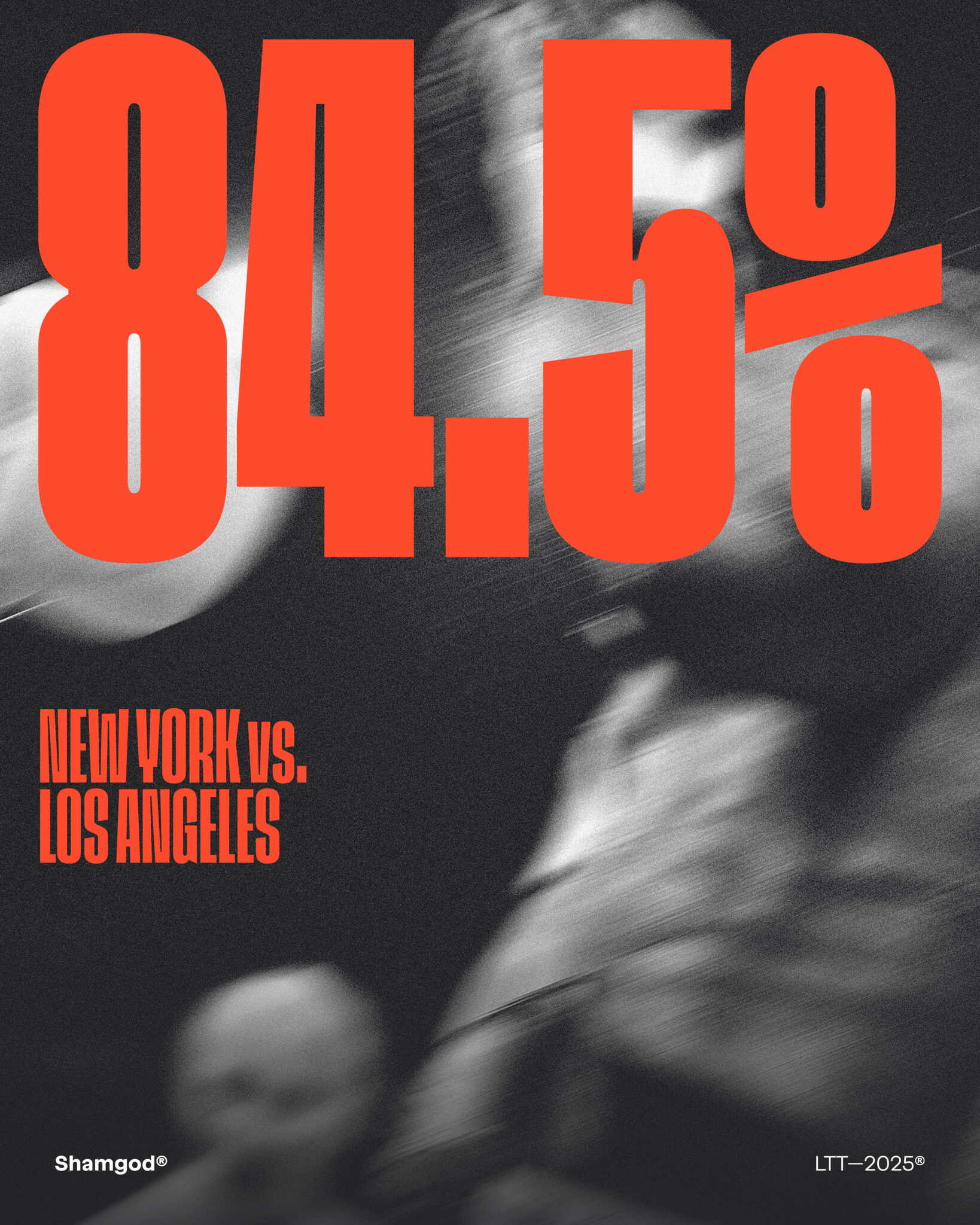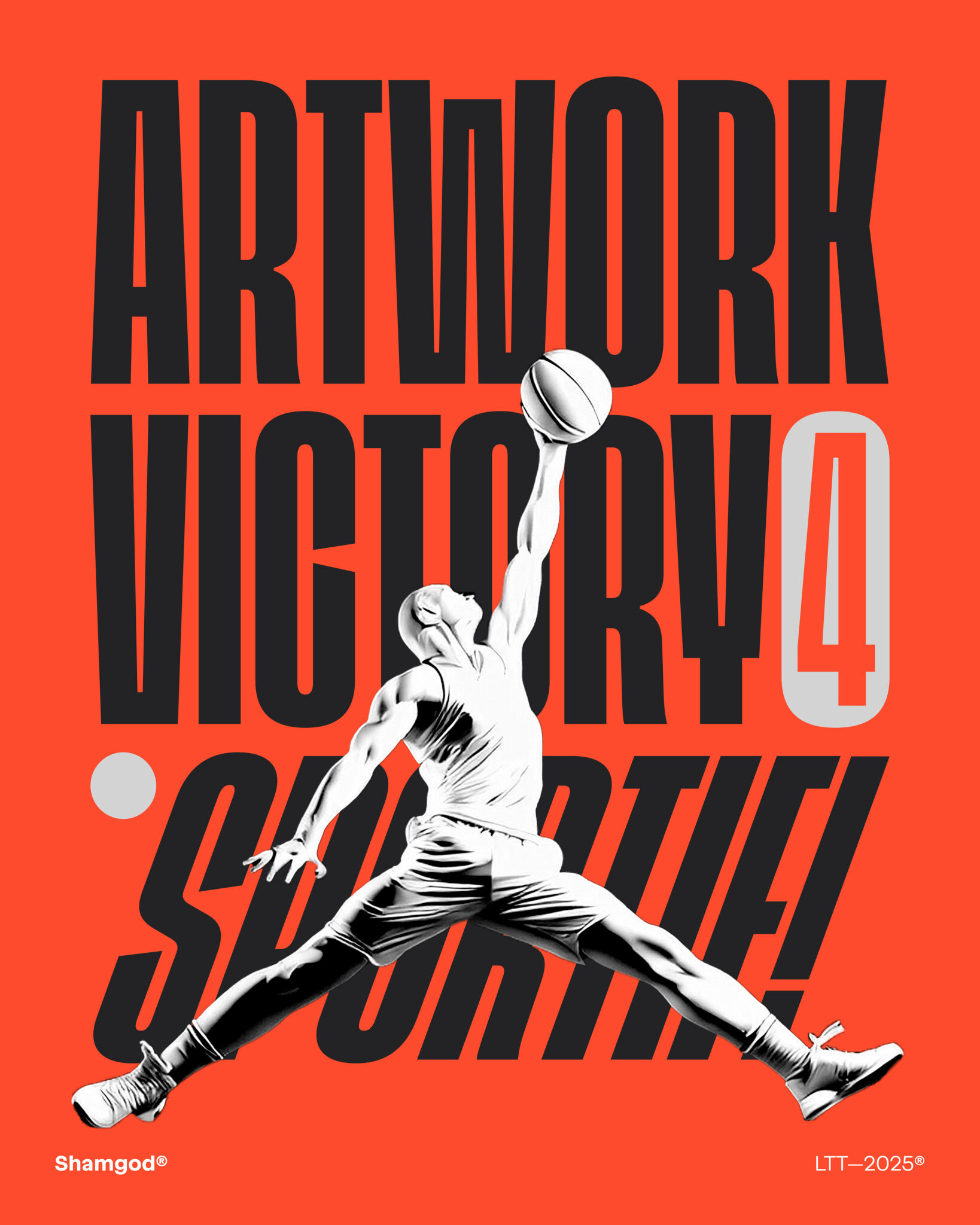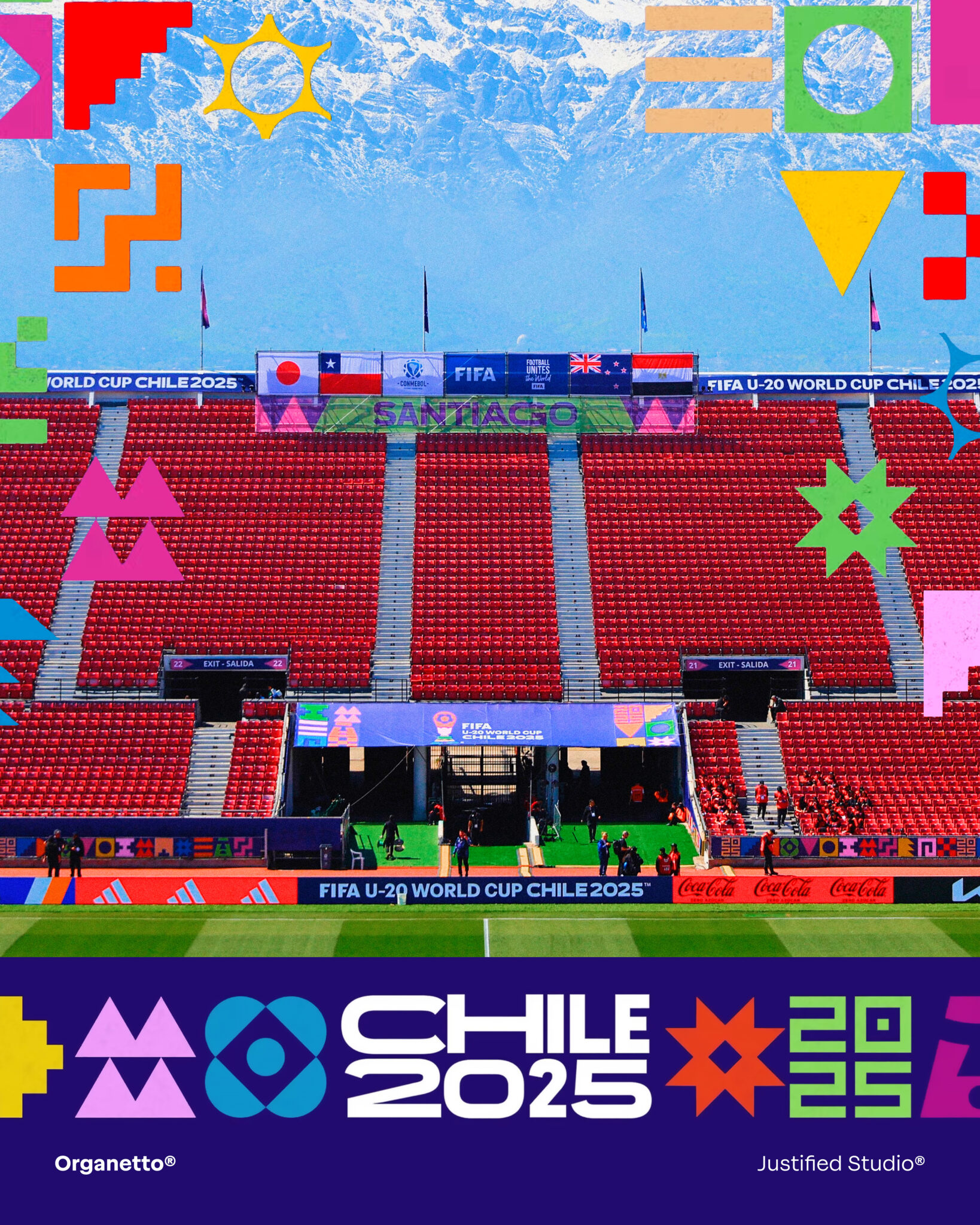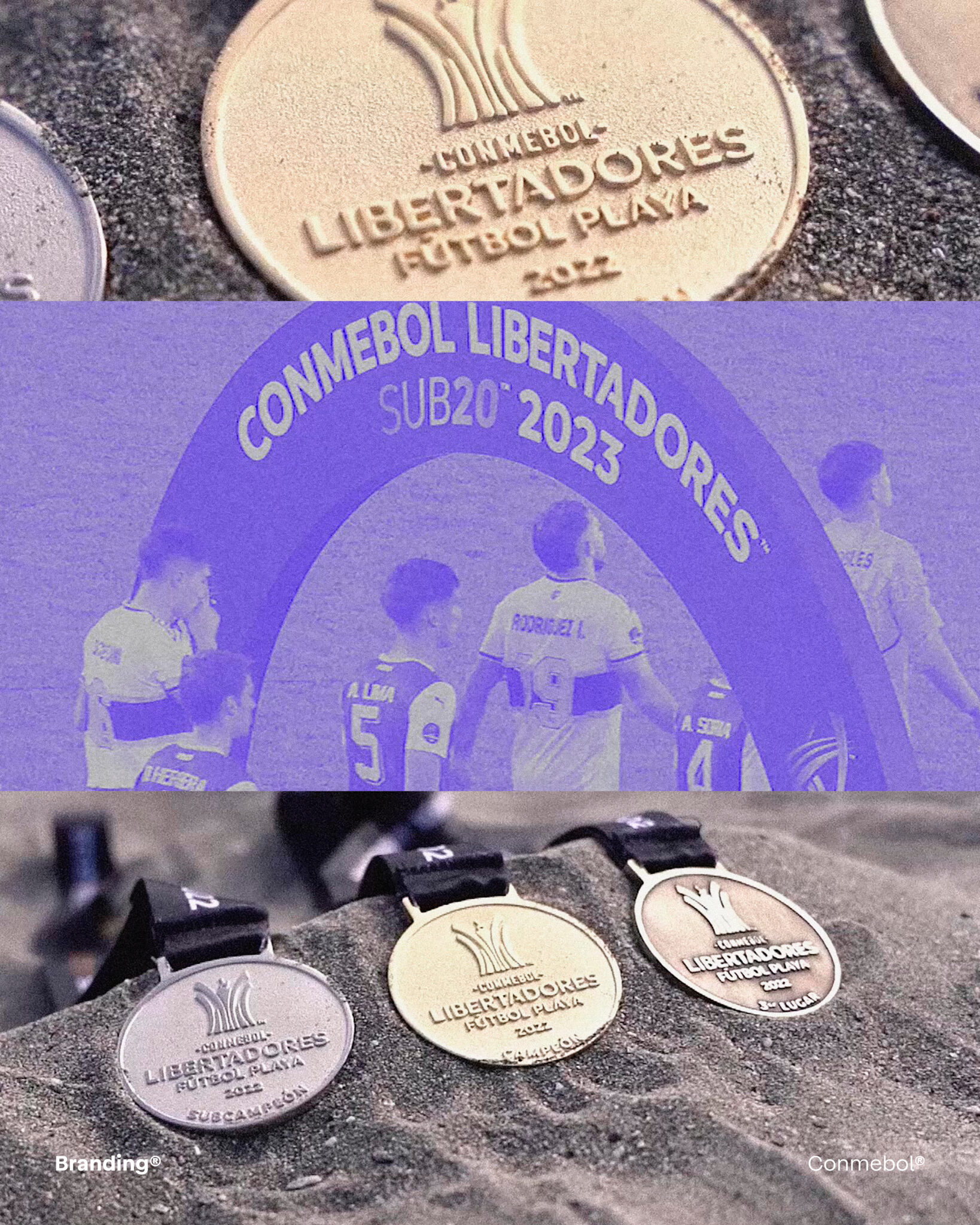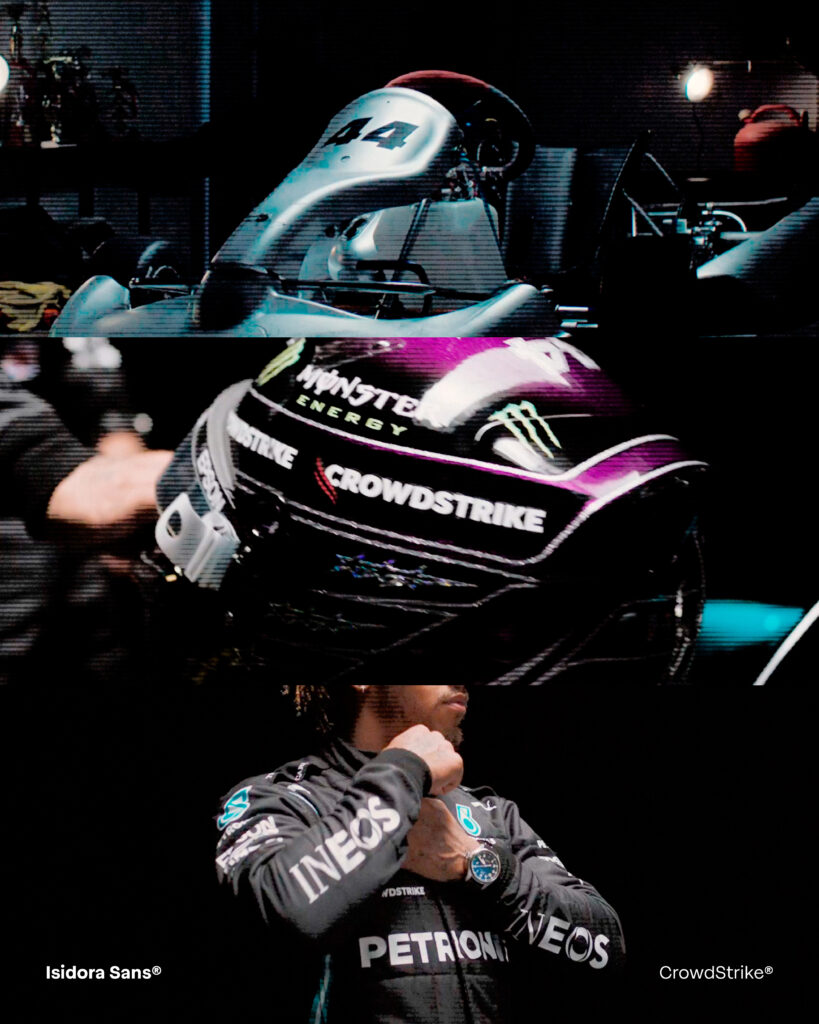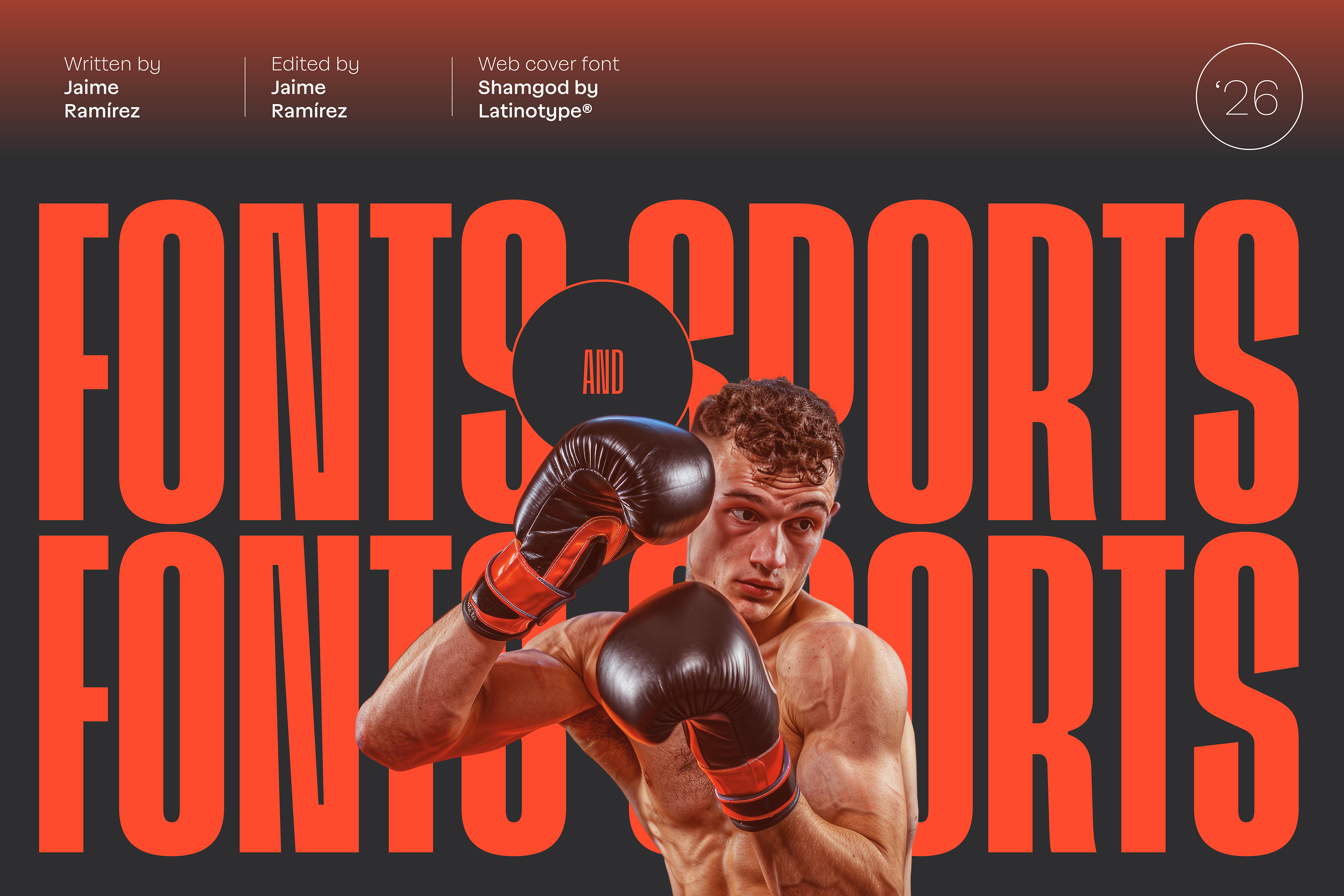
Fonts & Sports
When Letters Play Too
Beyond the result, sport is built as a carefully designed visual experience. Among jerseys, scoreboards and screens, typography plays a key role in how we understand and experience sport. Below, a look at this graphic universe that often goes unnoticed.
If you are a fan of football, basketball or motor racing, it is likely that sport, in visual terms, feels like familiar territory. The colours that return season after season, the team logos recognised from a distance, or the almost choreographed energy of a full stadium on any given weekend.
However, there is one element that rarely takes centre stage, even though it runs through everything: letters. When we think about sport, we almost never do so from this perspective. And yet they are present in the numbers that identify each player, in the surnames stitched onto jerseys, in the scoreboard that tracks the pulse of the match and in the headlines that turn a result into a story.
In team sports such as football, basketball or rugby, where information multiplies and visual noise overlaps, typography helps establish hierarchy and bring clarity to intense scenarios. Even in practices such as Zumba, where sport is experienced through rhythm, movement and the body, typography supports the experience through screens, graphics and visual systems that organise and amplify the energy of the group in motion.
In more individual disciplines such as tennis or karting, the typographic gesture takes on another dimension. A name, a number or a graphic detail can become part of an athlete’s identity. In these cases, typography stops being only a functional support and begins to operate as a visual signature, designed with the same care as any other element in an identity system.
Latinotype’s Experience on the Field
In sport, typography is much more than communication. This is something we at Latinotype know well. When CrowdStrike, a brand with a recognised presence in motorsport, chose “Isidora”, a typeface from our historical catalogue, as part of its rebranding, the challenge lay in versatility. The diversity of formats and substrates required a system capable of maintaining legibility and character in very different visibility contexts.
Something similar happened with “Branding”, one of the most recognisable typefaces in our catalogue, present in competitions such as the Conmebol Sudamericana. In an environment saturated with stimuli, it introduces a certain visual calm. Building hierarchies without overemphasising them and allowing the game to remain at the centre of the scene.
But sport also has moments when that control breaks. Instances of friction and accumulated tension, where communication needs to be immediate. In that territory appears “Shamgod”, another typeface with the Latinotype signature. Condensed, dense and with a strong urban imprint, it engages with speed and impact, working especially well in tournaments where everything is decided in seconds.
In a more flexible register, our typeface “Organetto” responds to a key condition of contemporary sport, constant adaptation. Its multiple widths and weights allow information to adjust to different formats without losing coherence. From jersey to screen, from signage to editorial support, typography accompanies fans without becoming rigid.